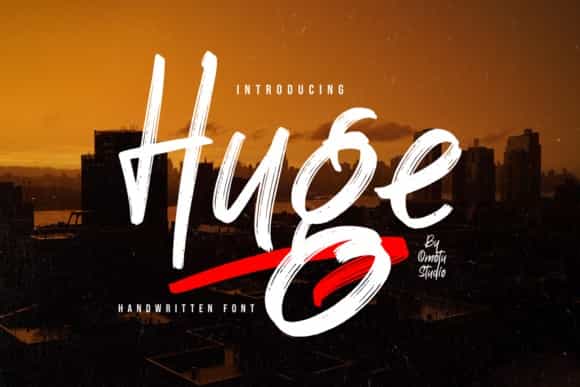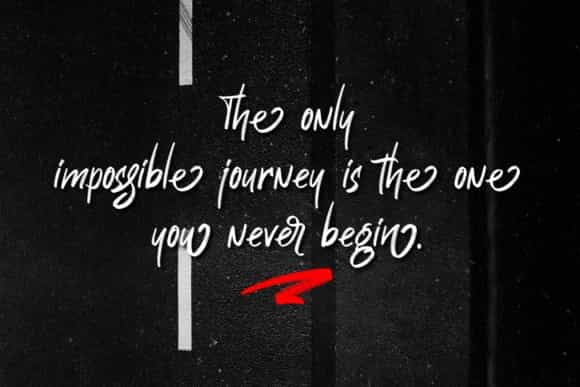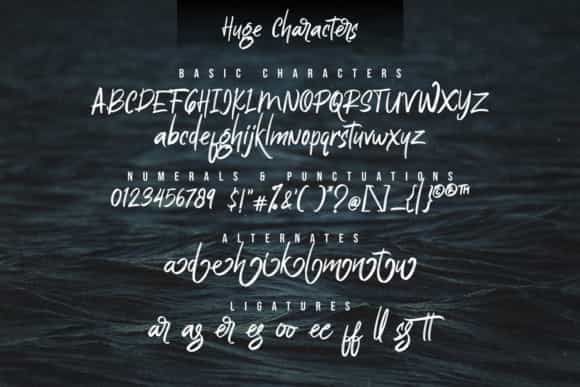
Huge Font is another brush script type design that enjoy producing so much. For me, the process of producing a new script typeface using such a familiar implement is altogether relaxing and rewarding to see come to life.